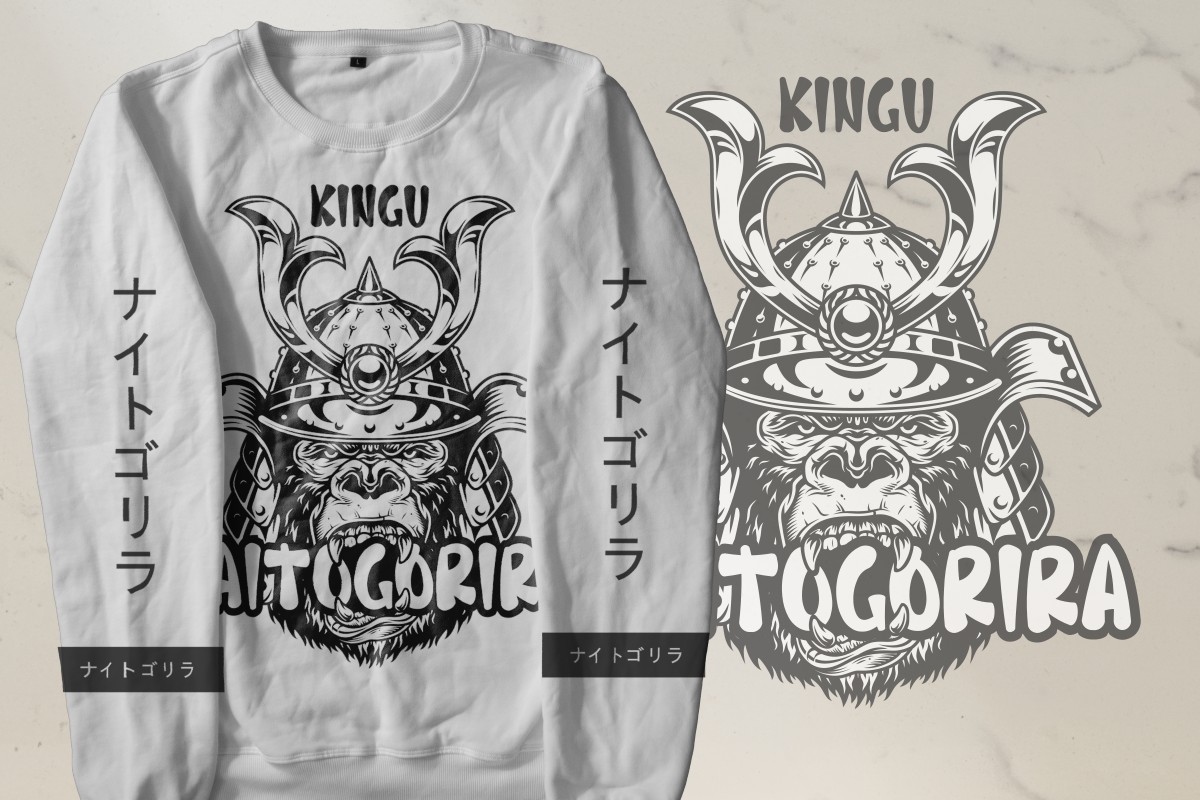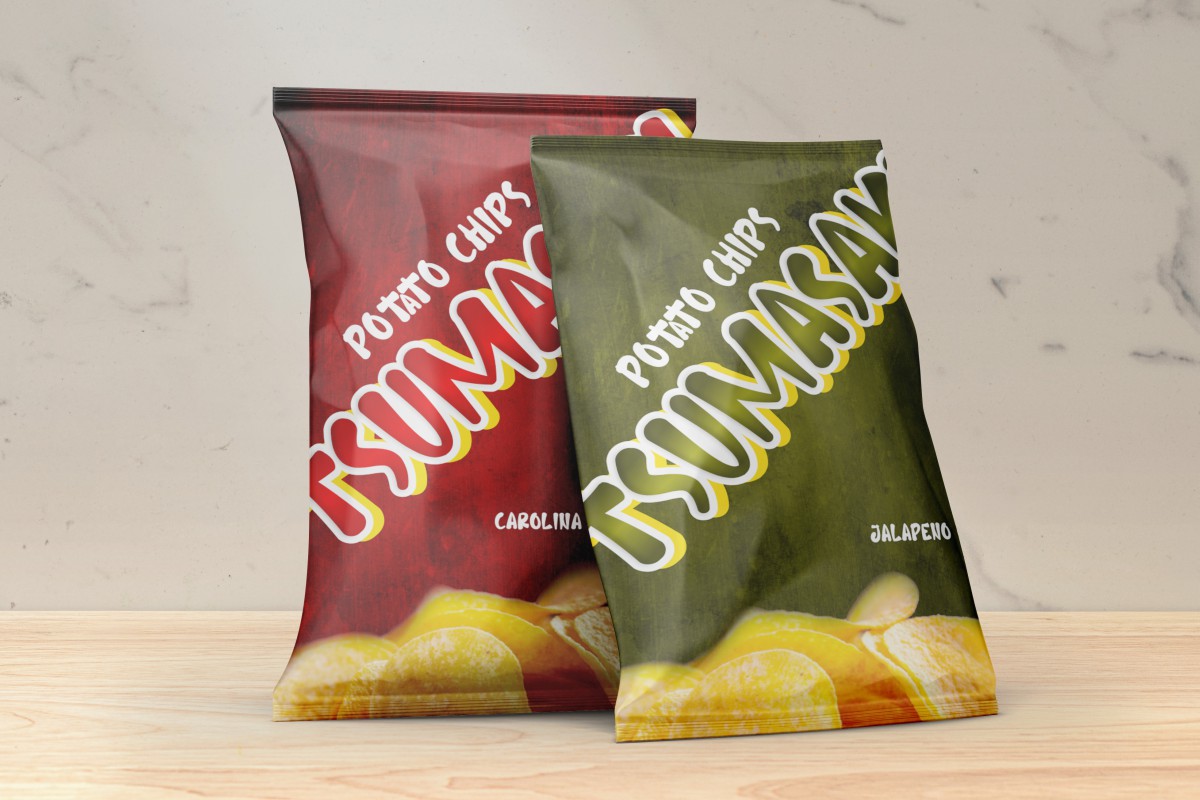
Tetsuya Display Font
This is a cartoon font with Japanese theme style. This font combines ethnic and cultural elements in each of the glyphs. This font is suitable for those of you who like Japanese culture and also suitable for many restaurant, clothing brand, arts, comic, studio, film, games, cartoon and many related business. Tetsuya Font includes full set of Uppercase Basic Characters, Numerals and Punctuation. Also contains ligatures and italic alternates characters to perfectly make it unique that add more beautiful and aesthetic fonts to perfect your extraordinary project.